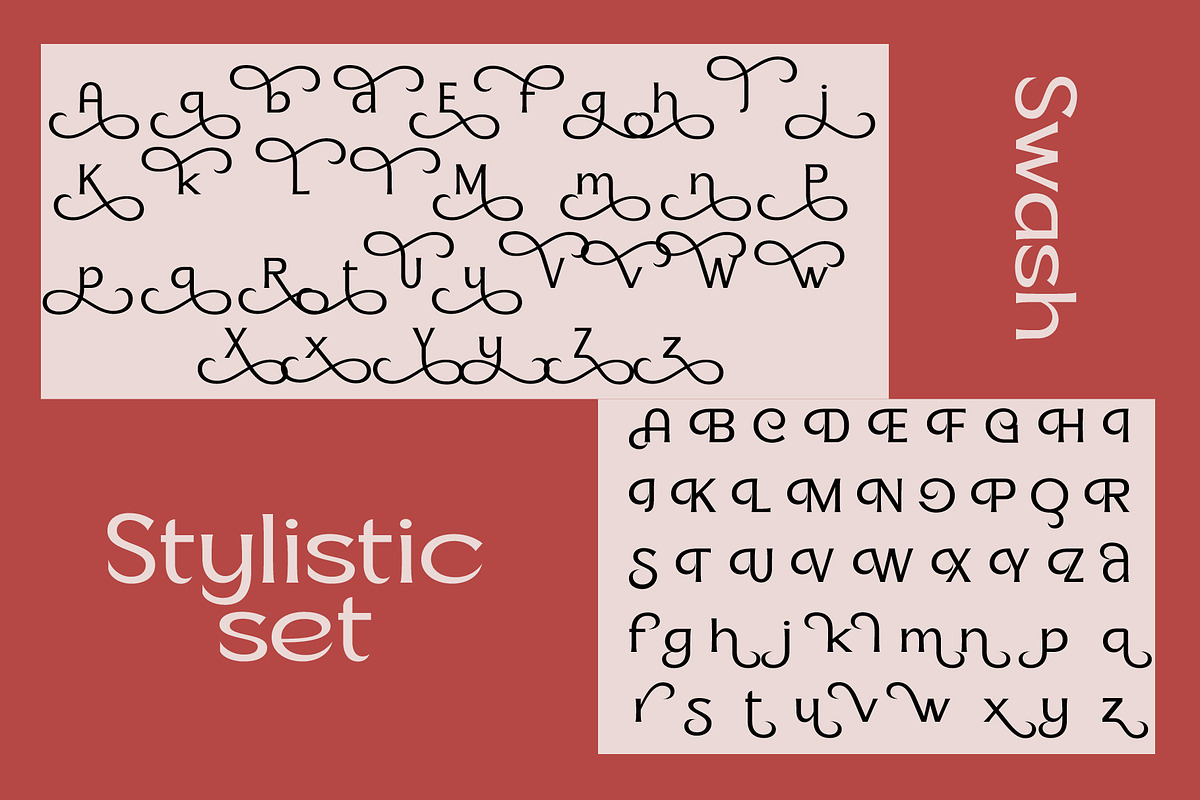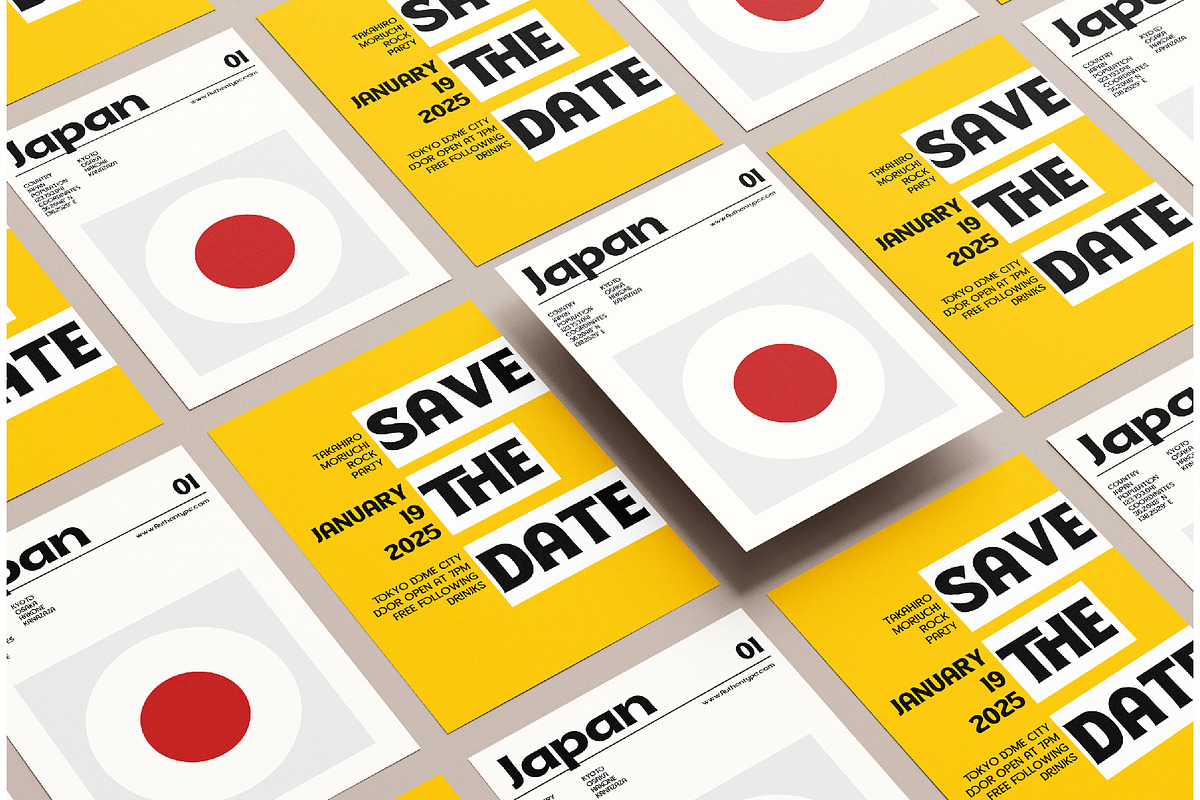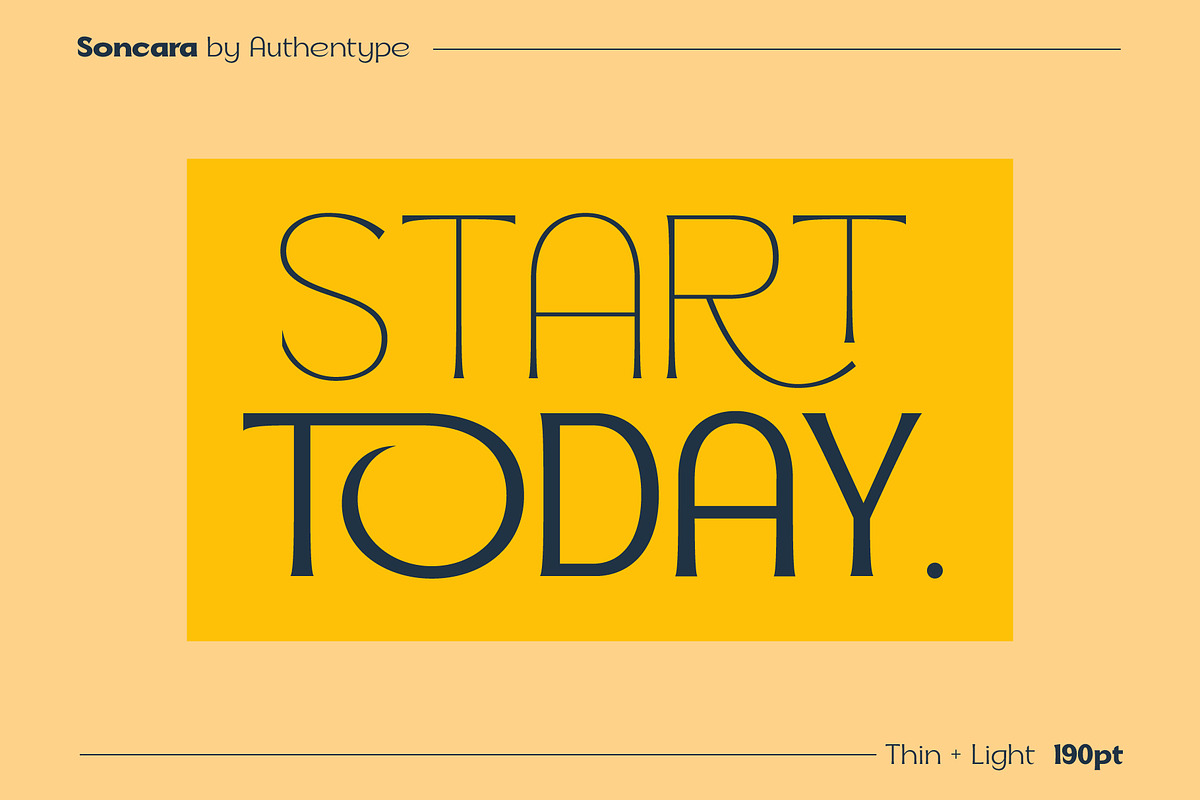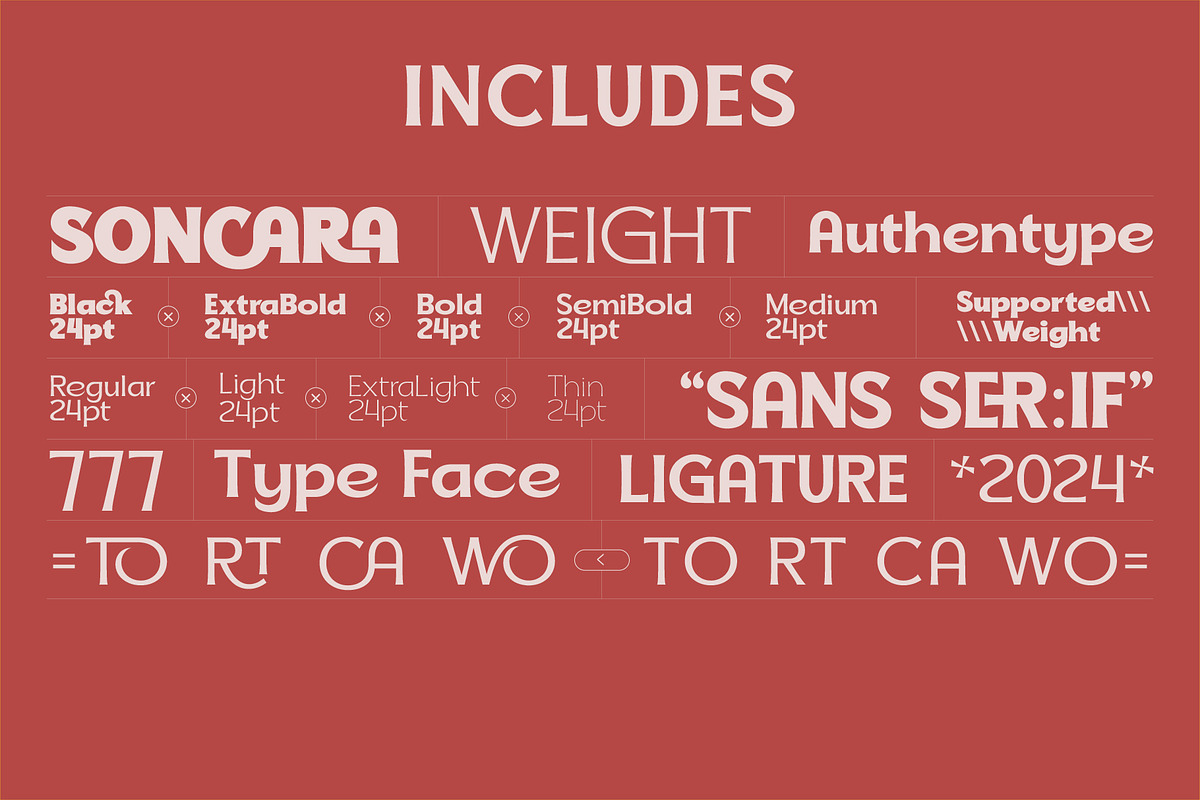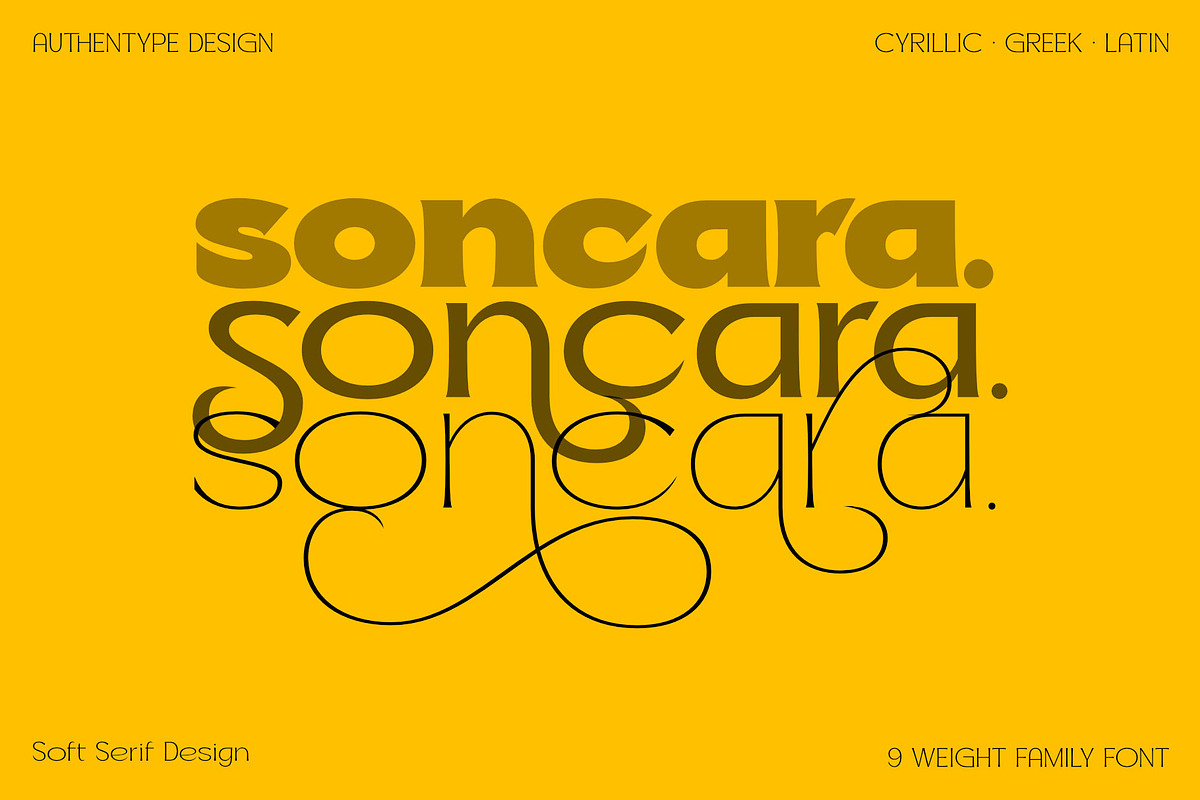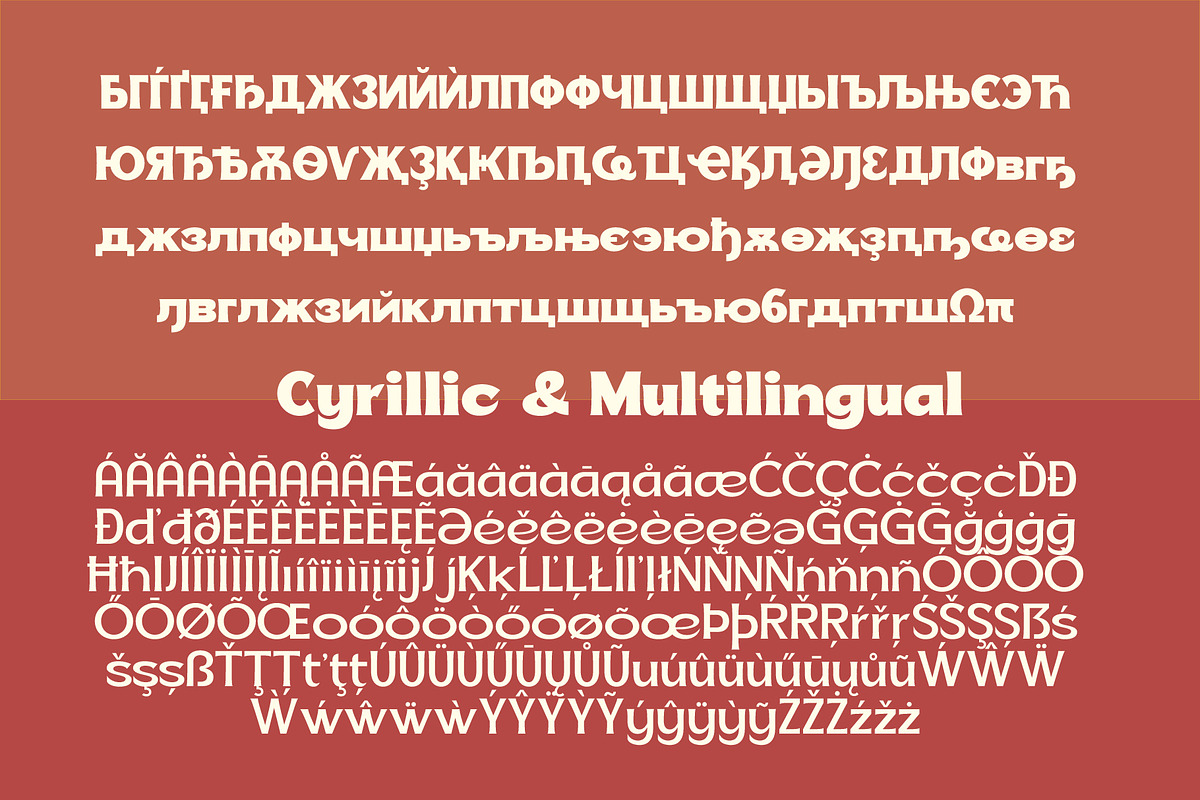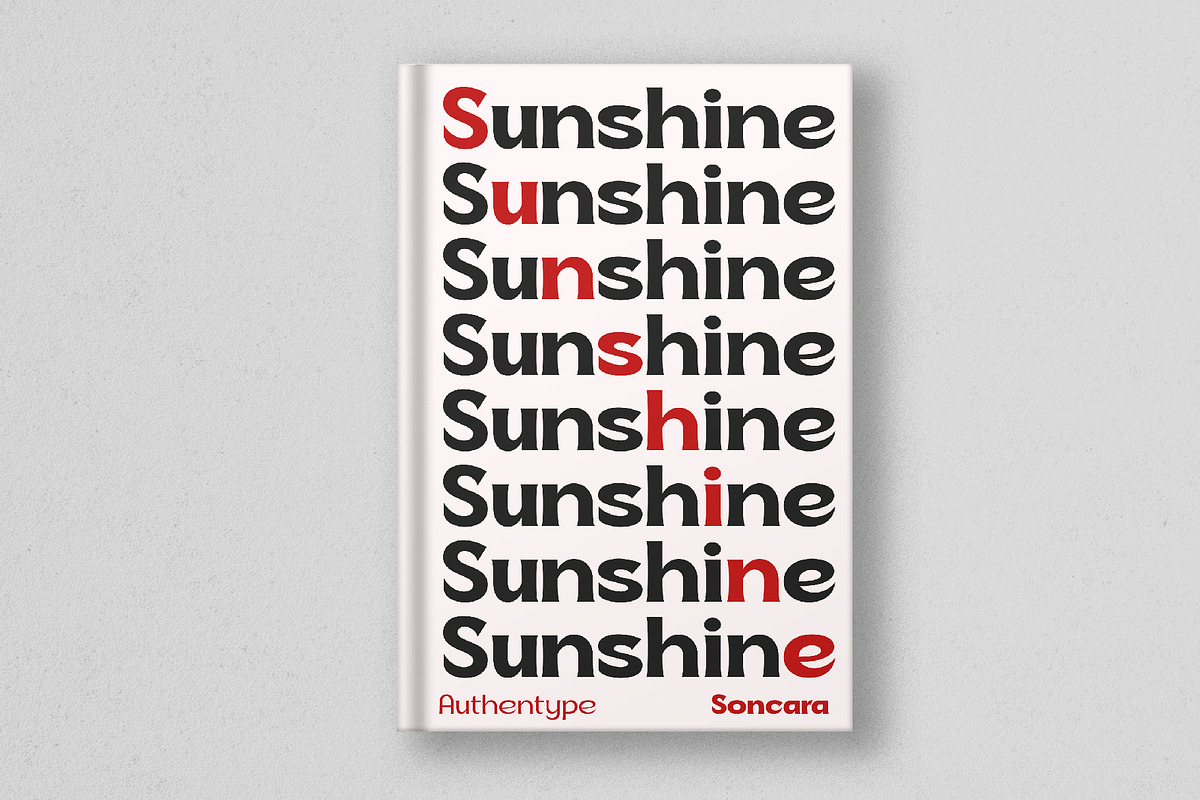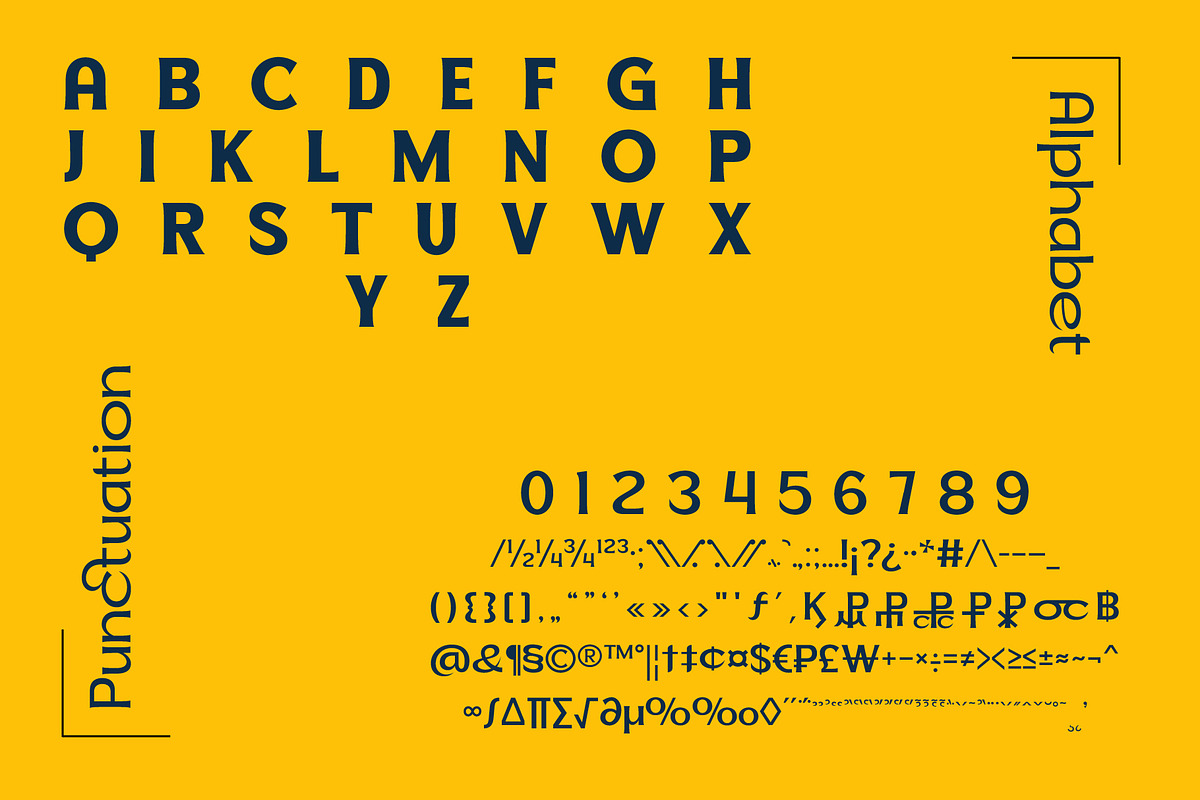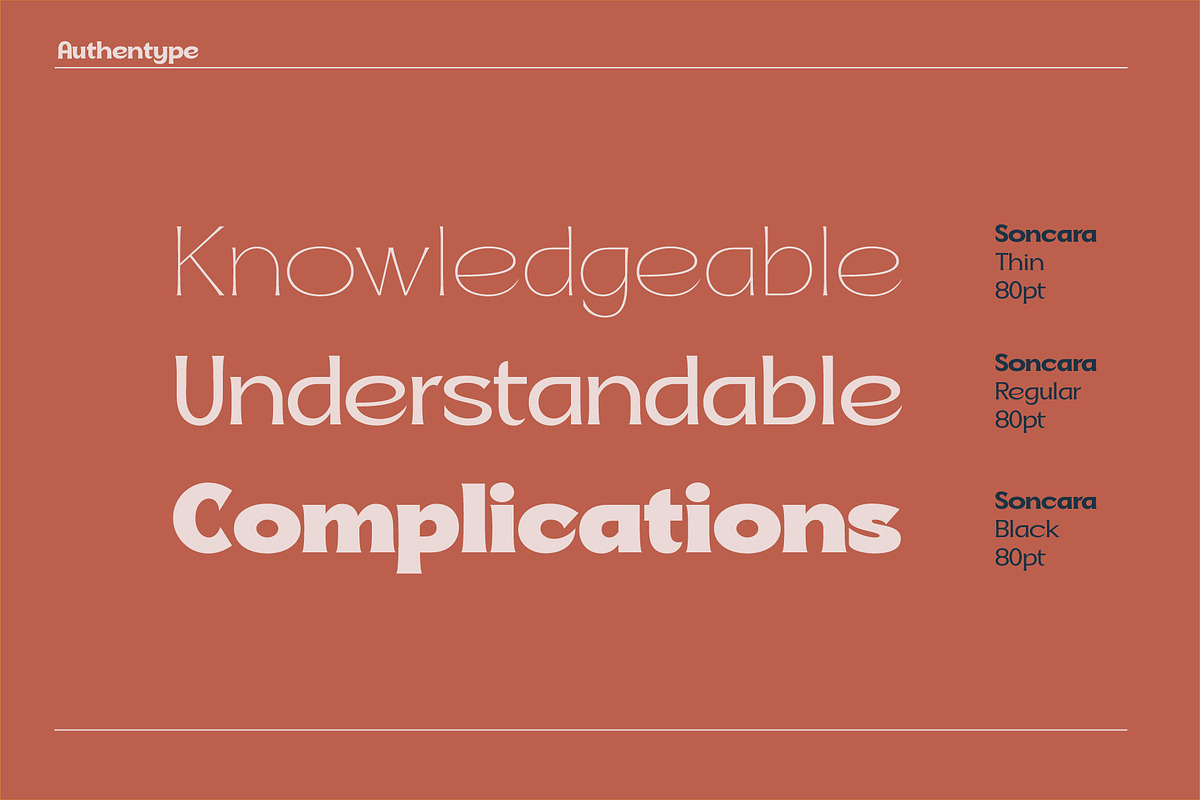
Soncara – Futuristic Soft Serif Font
Soncara Futuristic Soft Serif Font is a modern and sleek futuristic font with soft, rounded edges and a refined design aesthetic. Its unique combination of futuristic geometry and gentle curves makes it perfect for branding, headlines, posters, and tech-inspired projects. With multilingual support and versatile stylistic sets, soncara soft serif seamlessly blends innovation and elegance, elevating any creative design.